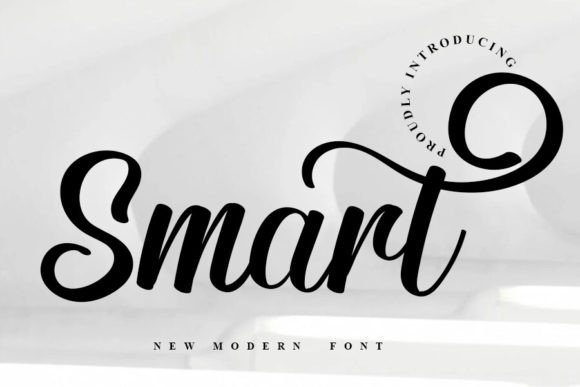
Introducing Smart Font: The Ultimate Handwritten Typeface for Creative Designs
Are you tired of using the same old fonts in your design projects? Look no further than Smart Font, a fresh and charming handwritten typeface that exudes a sense of youthfulness and creativity. With its flowing strokes and natural appeal, Smart Font adds a touch of elegance to any design project, from invitations and greeting cards to branding materials and social media graphics.
The Characteristics of Smart Font
Smart Font is a unique and stylish typeface that boasts a range of characteristics that set it apart from other fonts. Its flowing strokes and natural appeal give it a charming and elegant feel, making it perfect for designs that require a touch of sophistication. The font’s handwritten style also gives it a friendly and approachable feel, making it ideal for designs that require a more personal touch.
One of the key features of Smart Font is its versatility. It can be used in a wide range of design projects, from formal invitations and greeting cards to social media graphics and branding materials. Its elegant and refined appearance makes it perfect for designs that require a touch of luxury and sophistication.
The Benefits of Using Smart Font
There are many benefits to using Smart Font in your design projects. Here are just a few:
- Unique and eye-catching: Smart Font is a unique and eye-catching typeface that is sure to grab attention. Its flowing strokes and natural appeal make it stand out from more traditional fonts.
- Versatile: Smart Font can be used in a wide range of design projects, from formal invitations and greeting cards to social media graphics and branding materials.
- Elegant and refined: Smart Font has an elegant and refined appearance that makes it perfect for designs that require a touch of luxury and sophistication.
- Easy to read: Despite its elegant and refined appearance, Smart Font is easy to read and understand, making it perfect for designs that require a clear and concise message.
How to Use Smart Font in Your Design Projects
Using Smart Font in your design projects is easy. Here are a few tips to get you started:
- Pair it with other fonts: Smart Font can be paired with other fonts to create a unique and eye-catching design. Try pairing it with a bold and modern font for a striking contrast.
- Use it for headings: Smart Font is perfect for headings and titles, where its elegant and refined appearance can really shine.
- Experiment with colors: Smart Font looks great in a range of colors, from bold and bright to soft and pastel. Experiment with different colors to find the perfect look for your design.
The Psychology of Smart Font
The psychology of typography is a fascinating topic, and Smart Font is no exception. The font’s elegant and refined appearance can evoke a range of emotions and associations, from sophistication and luxury to creativity and playfulness.
When used in a design project, Smart Font can help to create a sense of connection and approachability. Its handwritten style gives it a friendly and personal feel, making it perfect for designs that require a more personal touch.
Smart Font in Digital Design
Smart Font is not just limited to print design. It can also be used in digital design projects, such as social media graphics, website headers, and email marketing campaigns.
In digital design, Smart Font can help to create a sense of elegance and sophistication. Its flowing strokes and natural appeal make it perfect for designs that require a touch of luxury and refinement.
Tips for Choosing the Right Font for Your Design Project
Choosing the right font for your design project can be overwhelming, especially with so many options available. Here are a few tips to help you choose the perfect font:
- Consider the purpose of your design: Different fonts are suited to different purposes. For example, a formal invitation requires a more elegant and refined font, while a social media graphic may require a more playful and creative font.
- Think about your brand identity: Your font choice should reflect your brand identity and personality. If your brand is sophisticated and luxurious, you may want to choose a font that reflects this.
- Experiment with different fonts: Don’t be afraid to experiment with different fonts to find the perfect one for your design project.
Smart Font is a fresh and charming handwritten typeface that exudes a sense of youthfulness and creativity. With its flowing strokes and natural appeal, it adds a touch of elegance to any design project, from invitations and greeting cards to branding materials and social media graphics.
Whether you’re a designer, marketer, or simply someone who loves typography, Smart Font is a great choice for any design project. Its versatility, elegance, and refined appearance make it perfect for a wide range of applications.